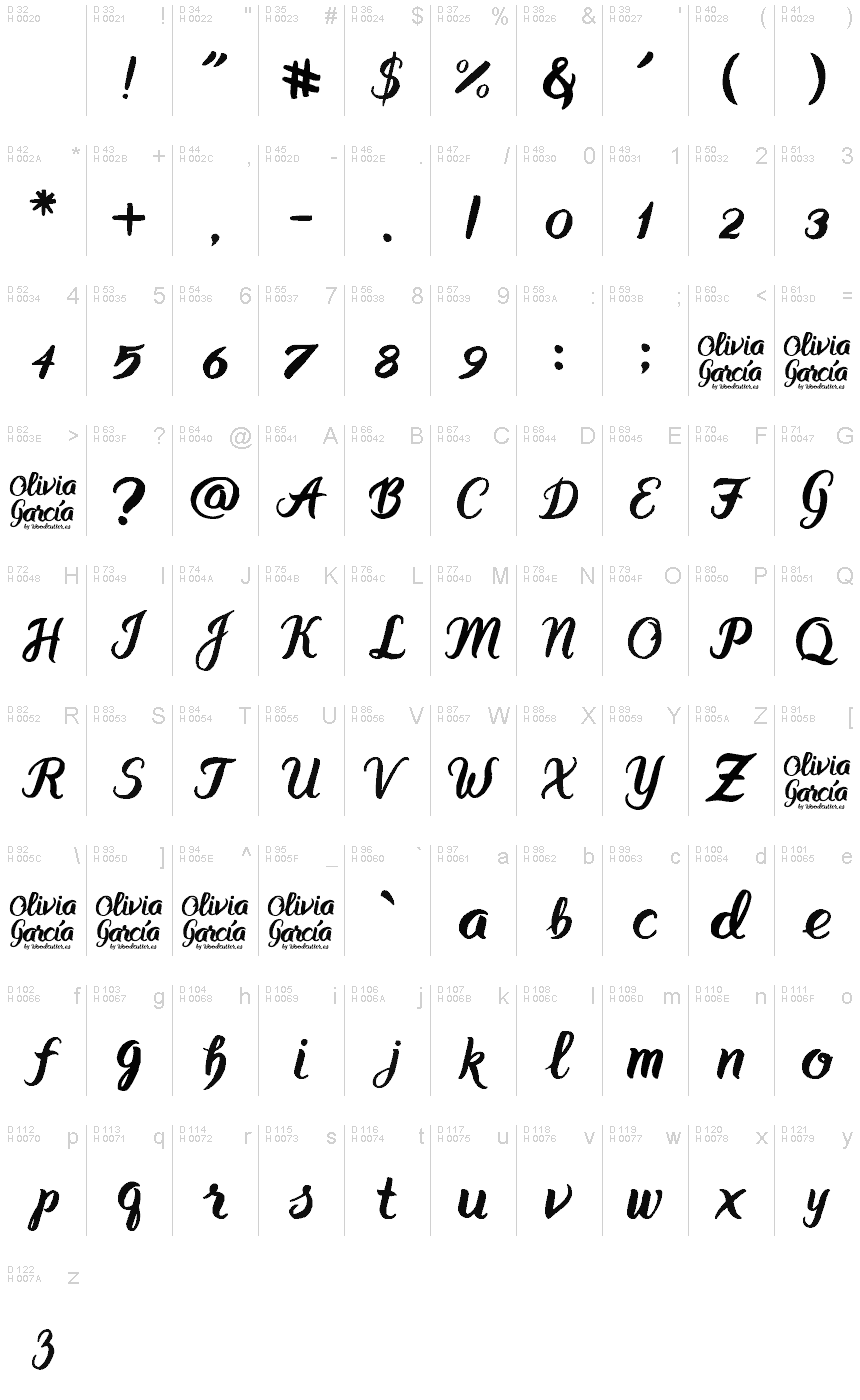
Olivia Garcia
Olivia Garcia is a captivating handwritten font that exudes charm and elegance. Crafted by the talented designer Woodcutter Manero, this font effortlessly combines flowing script with a touch of playfulness. Its organic, natural strokes lend a sense of warmth and authenticity to any design. Olivia Garcia's versatility shines through, making it a versatile choice for a wide range of applications, from invitations and branding to editorial layouts and personalized stationery.
Its distinct personality and attention to detail make it a standout option for those seeking to infuse a touch of artistry and personality into their creative work.